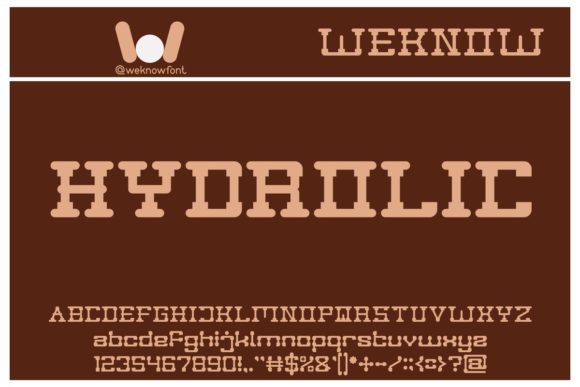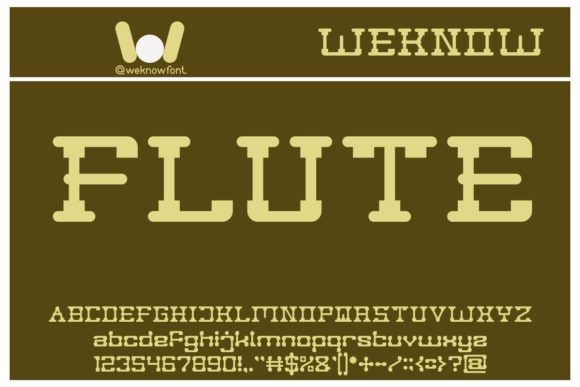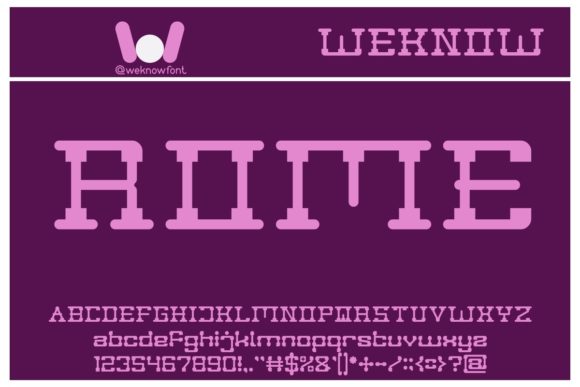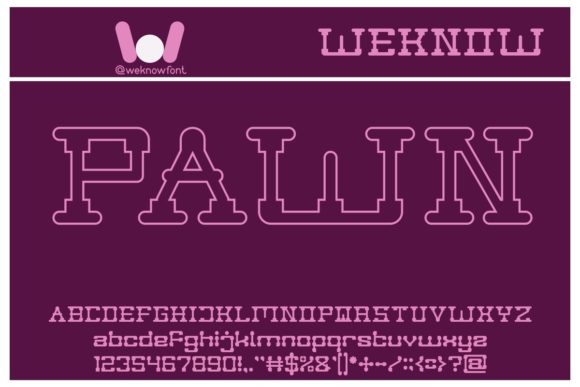
Post Rock Font – Free Download
Introduction to Post Rock Font
Post Rock is a fancy various themed display font, suited for logos, logotypes, headlines, corporate and brand identity, apparel industry, posters, music, movies, games, magazines, books, comics, cartoons, YouTube, Instagram, websites, or any of your creative design projects.
Key Features of Post Rock Font